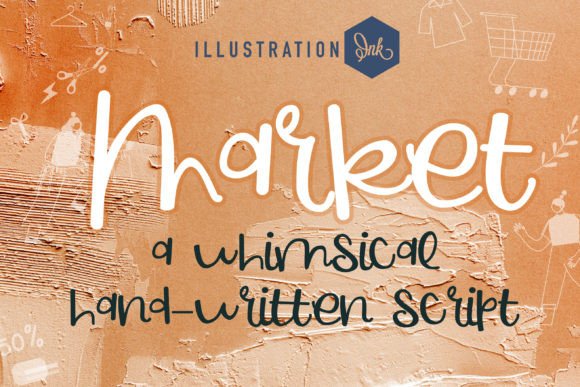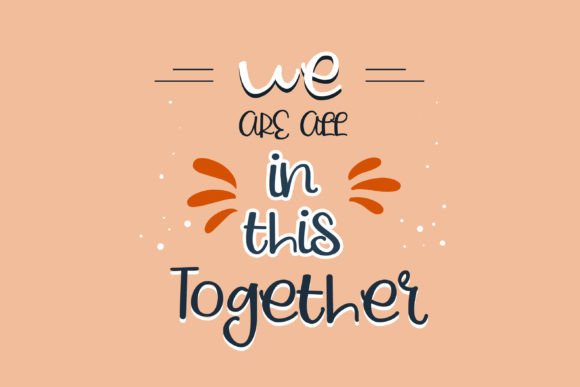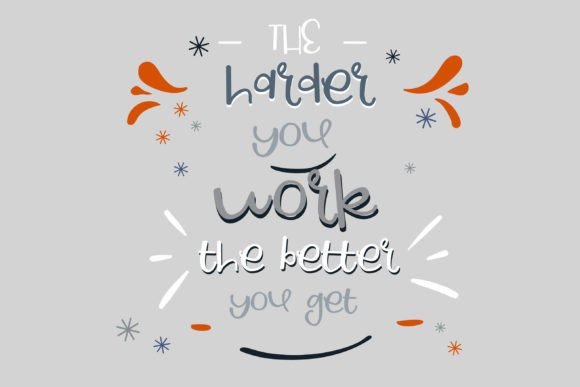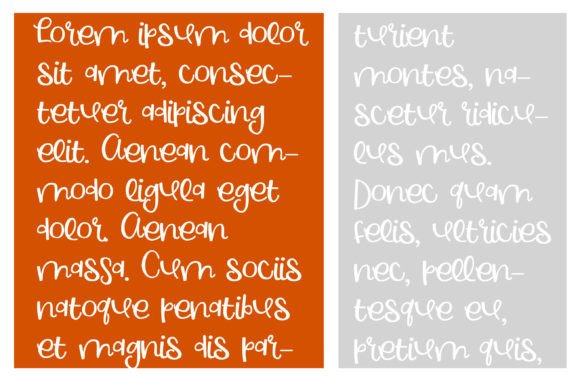
Market Font
About the Market Font
Make a bold statement with Market Font, a powerful and memorable font. This hand-crafted sans serif is a fun and whimsical font with youthful and a few script letters.
Market Font’s playful energy makes it ideal for headlines, short text blocks on packaging, and branding elements requiring a youthful feel. It works exceptionally well in projects targeting younger demographics or those promoting fun, creative products. Avoid using it for body text or extended reading; its whimsical nature hinders readability in large quantities.
Pairing Market Font with a clean sans-serif like Open Sans for body copy provides excellent contrast. For a more sophisticated look, consider pairing it with a classic serif such as Garamond for a balanced, traditional feel. A simple geometric sans-serif would also create a modern juxtaposition.
The font’s overall personality is best described as friendly and approachable, yet slightly quirky. Its hand-crafted feel adds a personal touch, making it suitable for brands focused on craft, handmade products, or those seeking a light-hearted image.